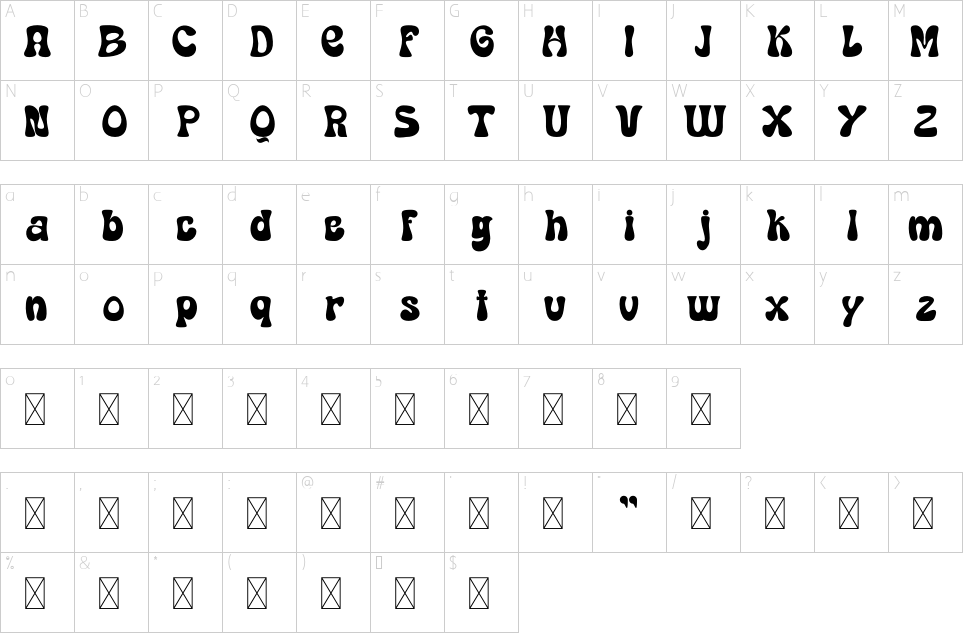
Lumida Font
Designers NoteThis holiday and craft font fits beautifully across logos, posters, covers, social media graphics, packaging, and branding materials. Whether you’re creating a headline font for a campaign or a logo font for a trendy café, Lumida adds that vibrant retro charm. A true essential for creatives, Lumida Font ensures every design stands out with personality and playful energy. Download Lumida Font today and elevate your creative projects globally. ================================================================= Terms Of Use By downloading or using our font, you are read and accept to the Our Term and Use Agreement : This font is copyrighted and protected by the law. Usage of this font on any work without proper license is deemed as illegal. You might get fined for at least USD 3000 for this act. Please do understand that we have our own system for tracking the usage of our works on internet. - This Font is DEMO / PERSONAL USE ONLY NO COMMERCIAL USE ALLOWED! - Click this link to purchase in my website : https://koplexs.com/product/lumida-font/ or on my other website https://coolestfont.com/product/lumida-playful-groovy-font/ - If you need a custom license please contact us at :  - Any donation are acceptable and very appreciated. Here is Our Paypal account for donation : http://www.paypal.me/koplexs173 Follow our social media for update : - My Shop Website : https://koplexs.com/ - Other My Shop : https://coolestfont.com/ - Other Blog : https://leavime.com/ - My Blog : https://kukoh.com/ Koplexs Studio provides various types of fonts, namely: Serif Font, Sans Serif Font, Script Font, Signature Font, Display Font, Handwriting, cursive font, cute fonts, Vintage Fonts, Groovy Fonts, and other Styles Fonts. Keep Sharing Thank you. Character MapFile Contents